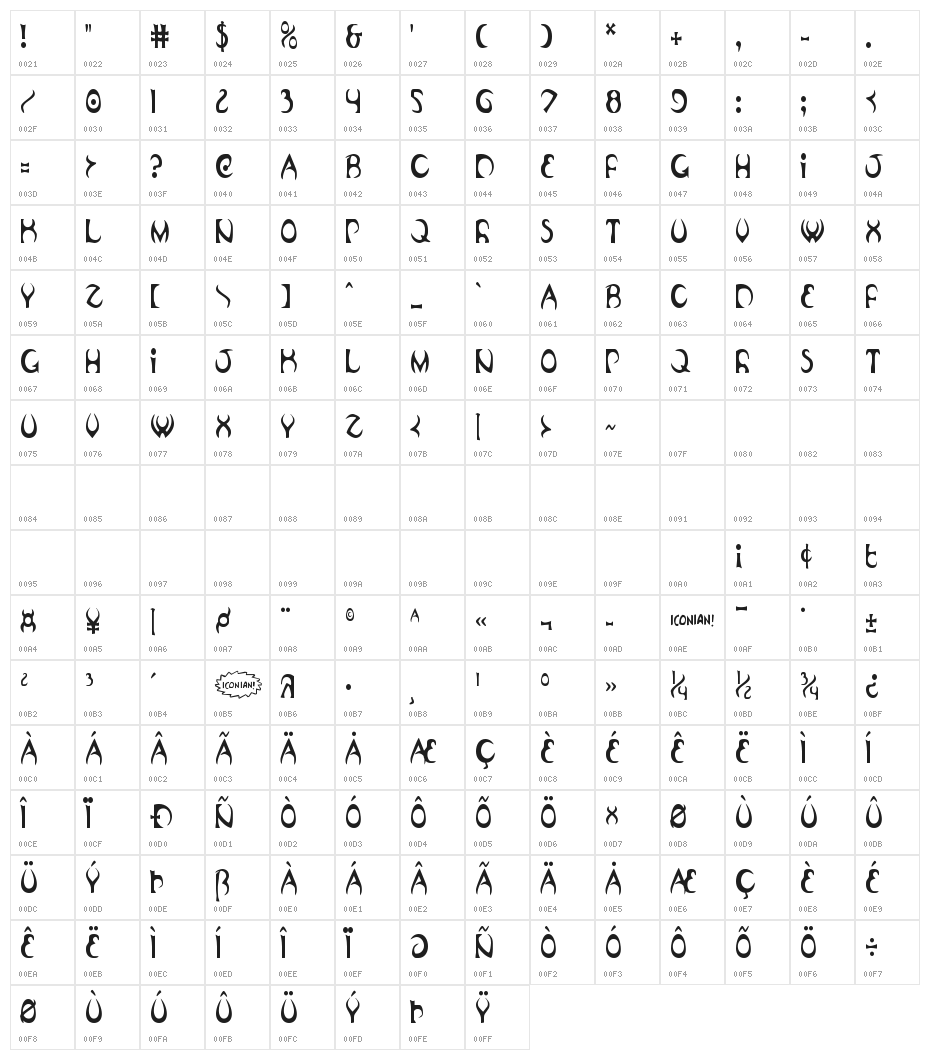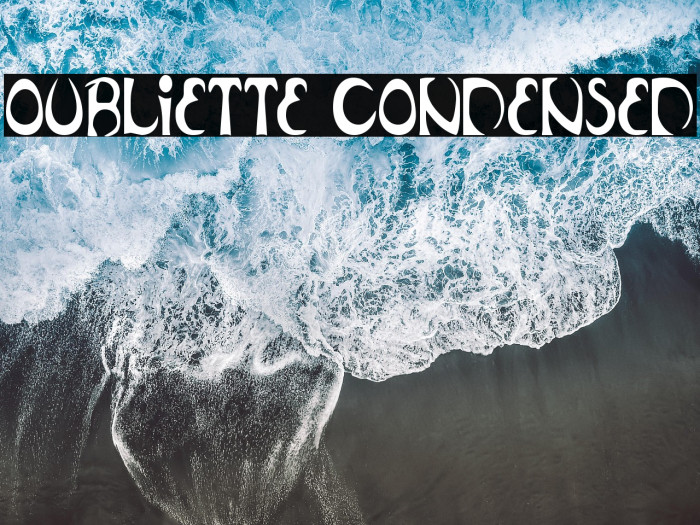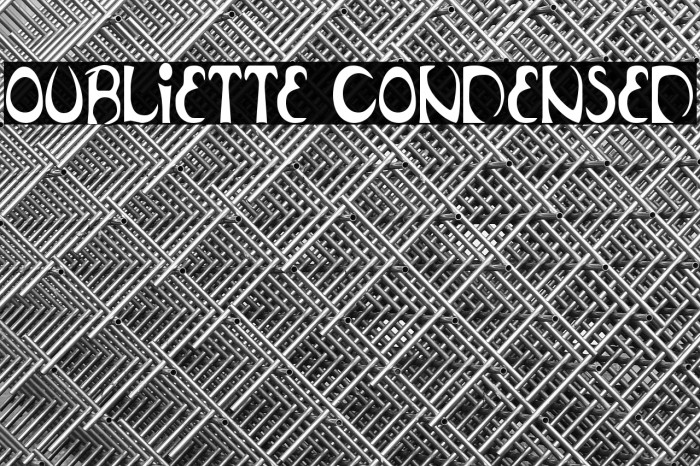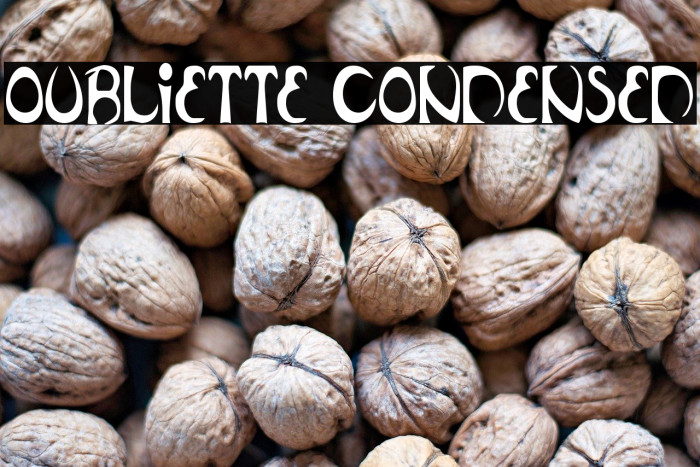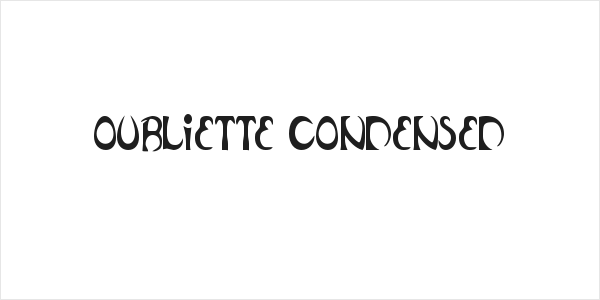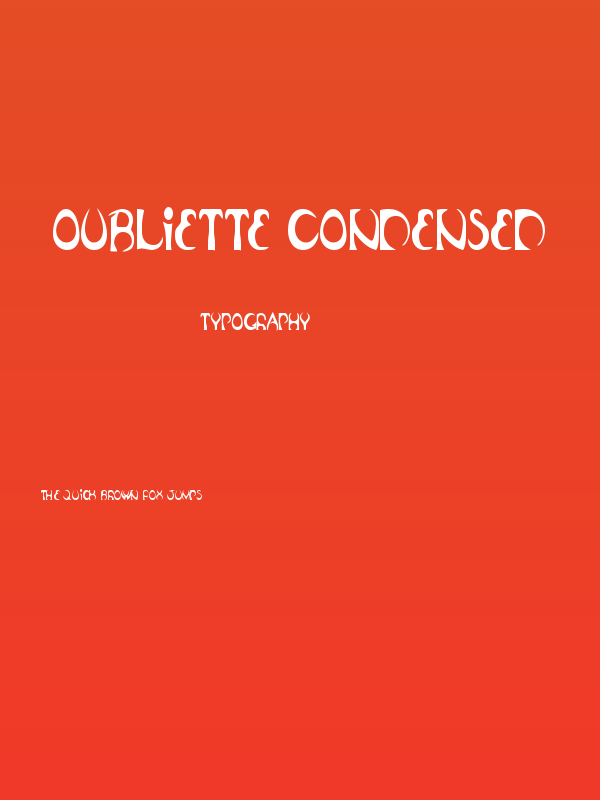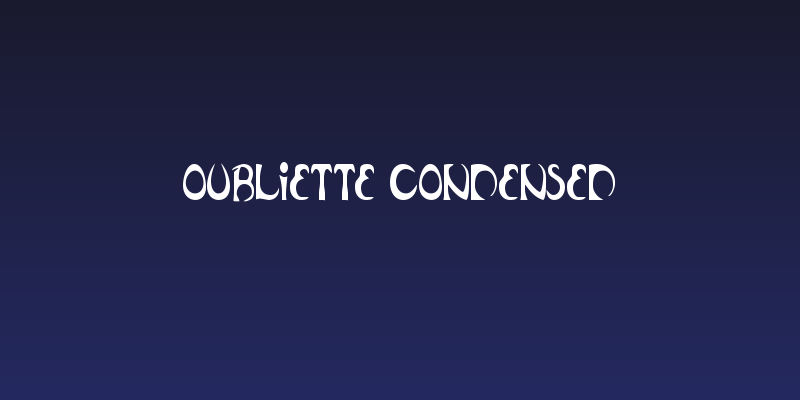
Oubliette Condensed Font
Oubliette Condensed Description
This font features a unique and artistic design with a condensed structure, characterized by its bold and dramatic curves. The letters exhibit a high contrast between thick and thin strokes, creating a striking visual impact. The overall style is decorative, with an almost mystical or fantasy-like appearance. The characters are tightly spaced, enhancing the condensed look, while maintaining legibility. The font includes a full set of uppercase and lowercase letters, numbers, and a variety of special characters, making it versatile for creative projects.
| Proposed Projects | Ideal for fantasy-themed designs, book covers, posters, and branding that requires a dramatic and artistic touch. |